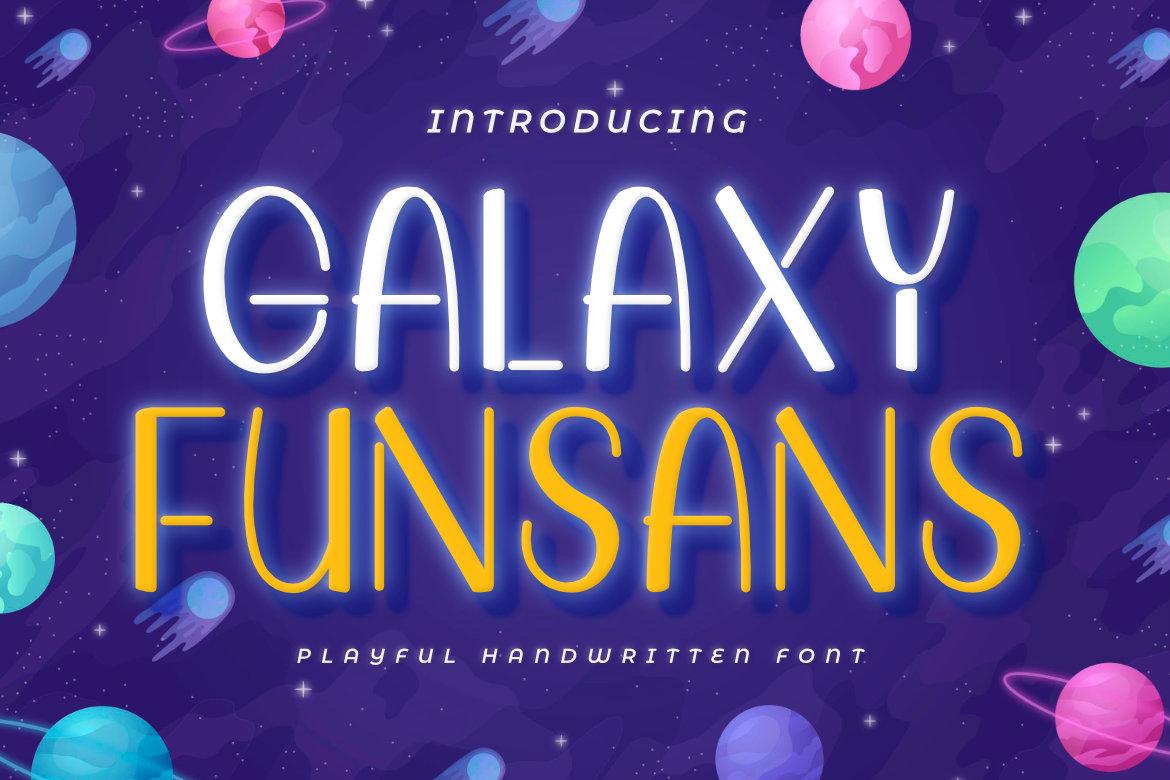
Galaxy Funsans Font Description
Galaxy Funsans is a playful display font. It has a cheerful look that will elevate your crafting projects to the highest level, be it branding, headings, wedding designs, invitations, signatures, logos, labels, and much more!